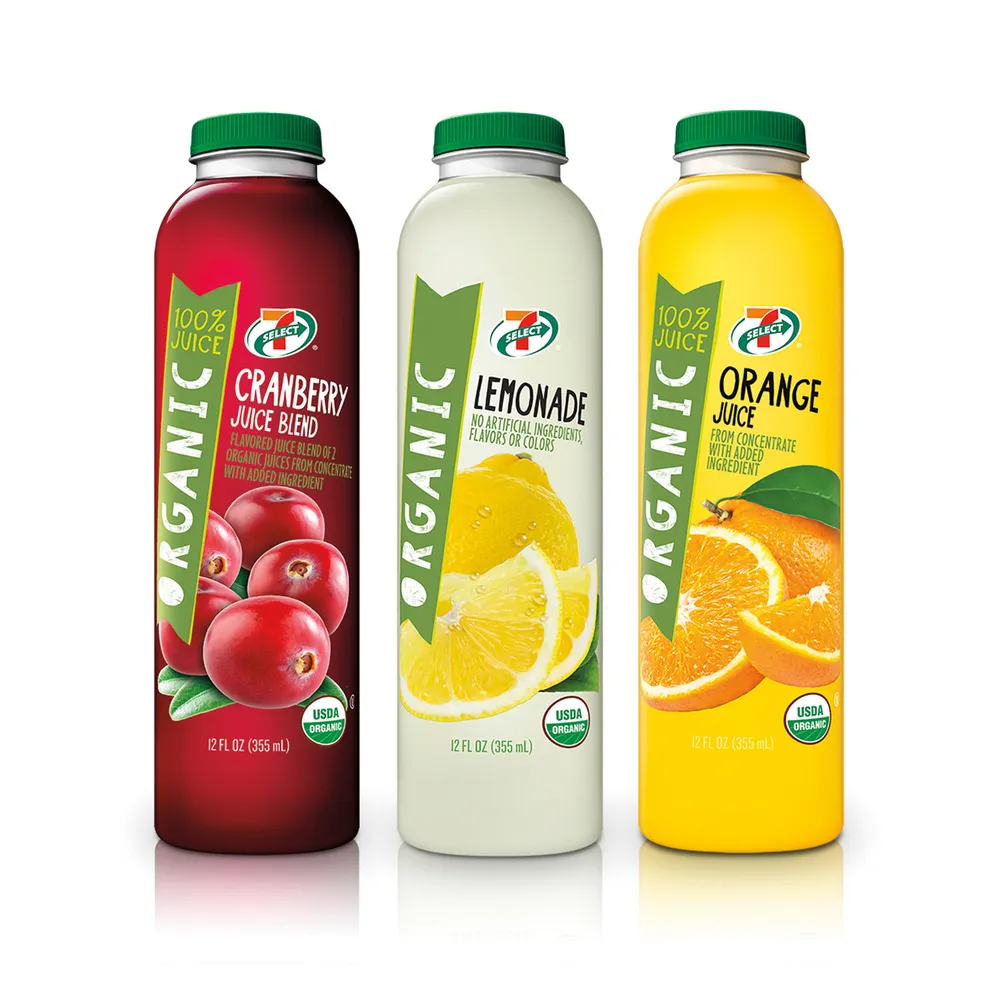
Fonts in Use: Oyster
7 Eleven
“7-Eleven was introducing a line of organic, healthier, 100% juice options for those looking for hydration and refreshment. The solution utilizes large-scale hand hewn typography to emphasize “organic”, along with bold, prominent images of real fruit to convey a natural, fruit forward message at shelf.”